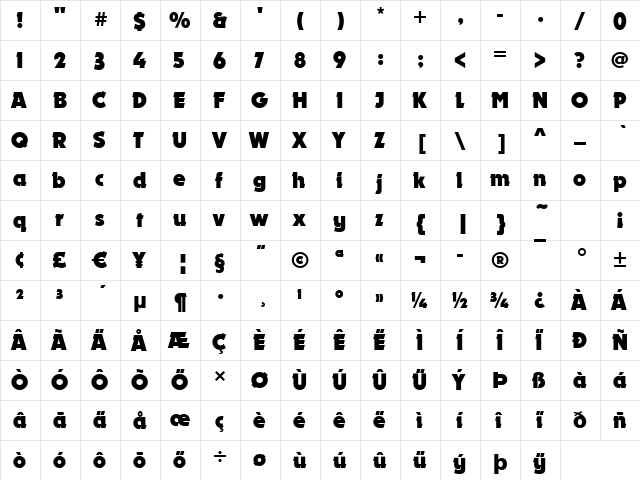
Durango Bold
Design Context for Durango Typeface
Durango takes a measured approach to typography — its balanced proportions and neutral character make it a reliable workhorse for both digital and print work. The heavy weight commands attention and anchors typographic hierarchies.